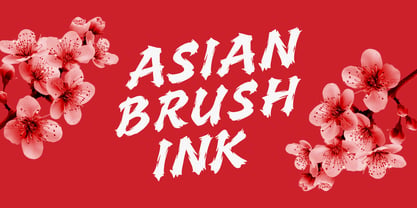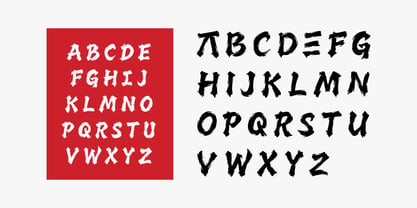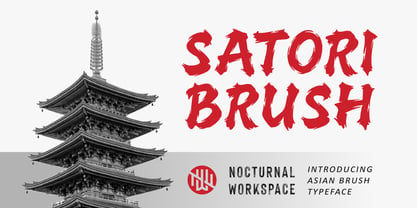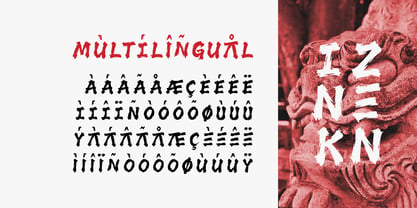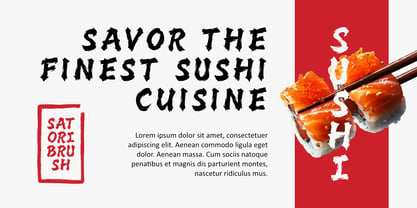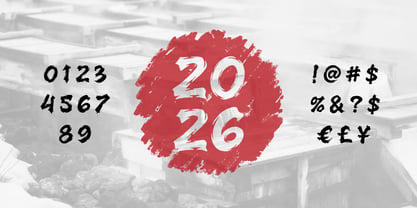
Satori Brush
by Nocturnal Workspace
The Satori Brush Font Family was designed by Farhan Tirta, Farhan Sudibya and published by Nocturnal Workspace. Satori Brush contains 1 styles. More about this family
Satori Brush: The Soul of Zen in Every Stroke Bring Eastern elegance to your designs with Satori Brush, an Asian-inspired brush typeface that captures the essence of traditional Japanese calligraphy with a contemporary twist. Crafted with expressive brushstrokes and detailed textures, this font offers a perfect balance between raw power and tranquil beauty. Every character in Satori Brush is designed to deliver a powerful visual impact. The gritty, authentic texture on the edges provides a genuine "hand-drawn" feel, making it an ideal choice for projects that require a bold and artistic personality. Key Features: Authentic Texture: High-detail brush strokes for a realistic ink-on-paper look. Cultural Aesthetic: Inspired by Shodo artistry and Zen aesthetics. Versatile Design: Specifically optimized for headers, titles, and high-impact layouts. Perfect For: Movie posters, apparel design (T-shirts), Japanese/Asian restaurant branding, book covers, martial arts logos, food packaging and social media content that needs to stand out with character.
Designers: Farhan Tirta, Farhan Sudibya
Foundry: Nocturnal Workspace